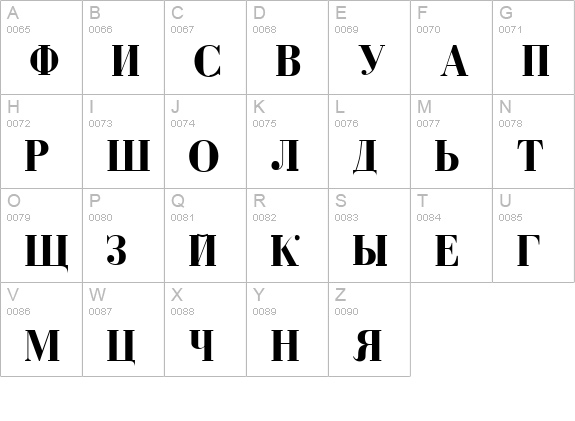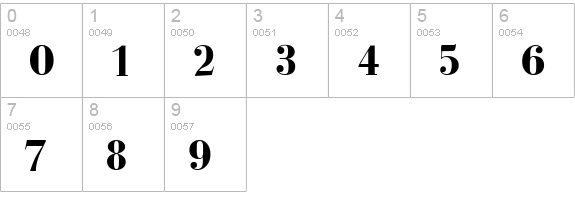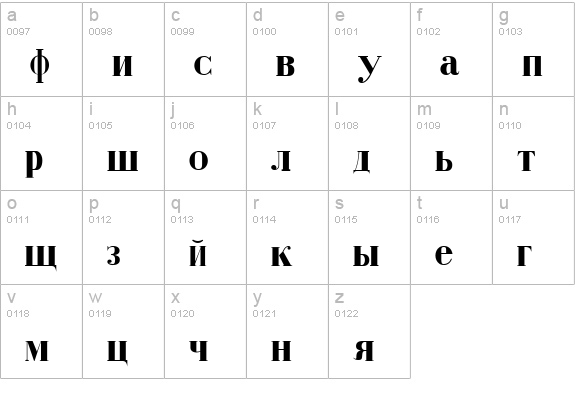
Dearborn Bold Font Details
Dearborn Bold is a strong, high-contrast variant in the Dearborn typeface family \xE2\x80\x94 well suited to headlines, attention-grabbing titles, and strong calls-to-action.
Dearborn Bold is a striking and robust typeface that exudes confidence and modernity. With its bold and impactful design, this font is perfect for making a statement in any project. Ideal for headlines, logos, posters, and more, Dearborn Bold commands attention and leaves a lasting impression. What sets Dearborn Bold apart is its versatility and readability, making it suitable for a wide range of design applications. Whether you're looking to create a bold and contemporary look or add a touch of sophistication to your project, Dearborn Bold has you covered. The best part is that Dearborn Bold is available for free download at FontsMarket.com, allowing you to easily incorporate this stylish font into your designs without breaking the bank. Don't miss out on the opportunity to enhance your projects with the impactful and dynamic Dearborn Bold font today!